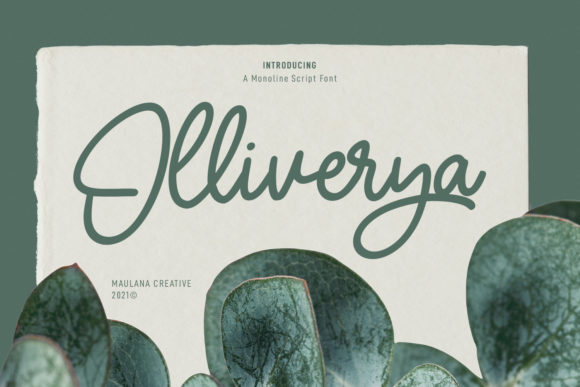
Olliverya Script: The Elegant Font That Elevates Your Creativity
Fonts are more than just characters on a screen—they’re the silent storytellers of your message. When it comes to adding a touch of personality and charm, Olliverya Script stands out as a magical script font that blends elegance with creativity. Designed for those who appreciate the art of calligraphy, this font is perfect for anyone looking to elevate their visual communication, whether it’s for personal projects or professional branding.
If you're someone who loves Instagram posts that catch attention, DIY crafts that feel special, or even logos that leave an impression, Olliverya Script can be your go-to tool. Its flowing curves and refined strokes make it ideal for creating content that feels both professional and artistic.
What Is Olliverya Script?
Olliverya Script is a beautifully crafted script font that brings a sense of sophistication and grace to any design. It mimics the look of hand-written calligraphy but with consistent precision and style. This font is especially well-suited for creative professionals, bloggers, and entrepreneurs who want to stand out in a digital world filled with generic text.
Unlike many other script fonts that can appear too casual or too formal, Olliverya Script strikes the perfect balance. It’s versatile enough to work across various platforms and formats, from social media to print materials, without losing its unique character.
Where Can You Use Olliverya Script?
The beauty of Olliverya Script lies in its adaptability. Here are some real-world scenarios where this font shines:
Why Choose Olliverya Script Over Other Fonts?
In a sea of fonts, what makes Olliverya Script worth considering? Let’s break down a few key reasons:
1. Elegance Meets Versatility: While many script fonts lean heavily into one direction—either too whimsical or too formal—Olliverya Script offers a balanced aesthetic that works in both personal and professional contexts.
2. Perfect for Digital Platforms: With the rise of online presence, having a font that looks great on screens is essential. Olliverya Script maintains its quality across different devices and resolutions, ensuring your content always looks polished.
3. Easy to Read and Recognizable: Despite being a script font, Olliverya Script remains highly legible. This means your message stays clear while still feeling artistic and unique.
4. Great for Visual Storytelling: Whether you're designing a poster, a website header, or a product label, Olliverya Script helps tell a story through typography, which can significantly enhance user engagement.
How Different Users Benefit from Olliverya Script
Depending on your role or interests, Olliverya Script can offer specific benefits. Here's how different types of users might find value in this font:
Entrepreneurs and Small Business Owners: A well-designed logo or marketing material can make all the difference in standing out from competitors. Using Olliverya Script in branding elements like logos, website headers, or social media graphics can give your business a refined and professional look.
Bloggers and Content Creators: For bloggers and influencers, typography plays a crucial role in attracting and retaining readers. Incorporating Olliverya Script in headlines, quote sections, or post titles can make your content more visually engaging and shareable.
Designers and Artists: If you're working on illustrations, posters, or other graphic designs, Olliverya Script provides a beautiful, handcrafted feel that can elevate the overall aesthetic of your work.
Students and Educators: Teachers can use this font in presentations or classroom materials to make information more visually appealing. Students might find it useful for creating eye-catching study notes or project displays.
Hobbyists and Craft Enthusiasts: Anyone involved in crafting, whether it's making cards, stickers, or custom calendars, will appreciate the elegance that Olliverya Script brings to their creations.
Things to Consider Before Using Olliverya Script
While Olliverya Script is a fantastic choice, there are a few things to keep in mind before incorporating it into your projects:
Final Thoughts
Olliverya Script isn't just another font—it's a powerful tool that can transform the way you communicate visually. Whether you're an entrepreneur, designer, blogger, or simply someone who enjoys creating, this font offers a unique blend of elegance and versatility that can enhance your projects in countless ways.
By choosing Olliverya Script, you're not just selecting a font; you're investing in a creative solution that aligns with your vision and helps you stand out in today’s competitive digital landscape. So why wait? Start exploring the possibilities and see how this magical script font can bring your ideas to life.